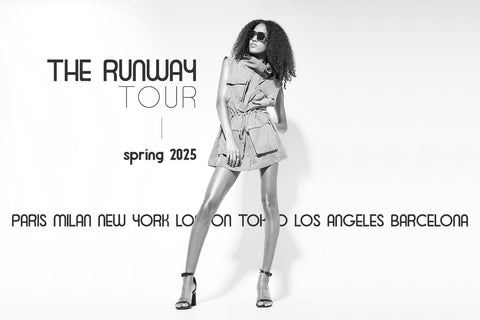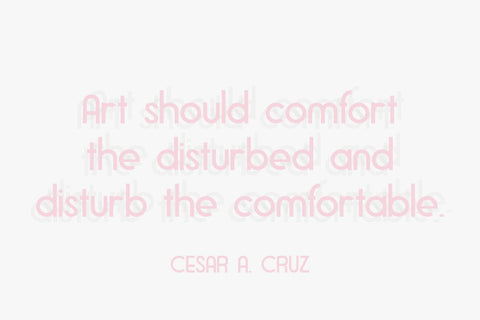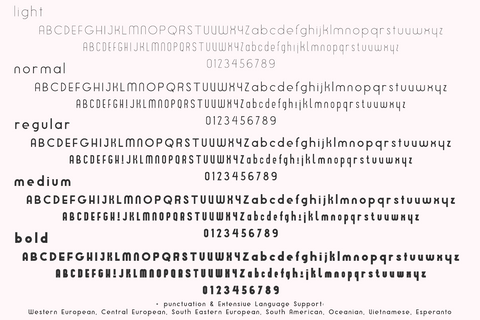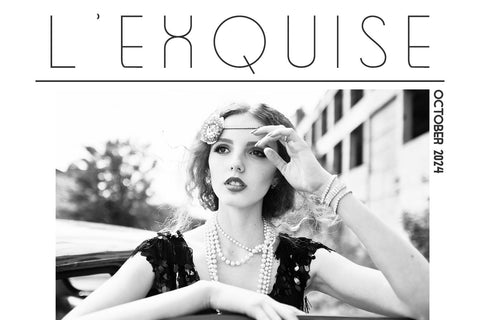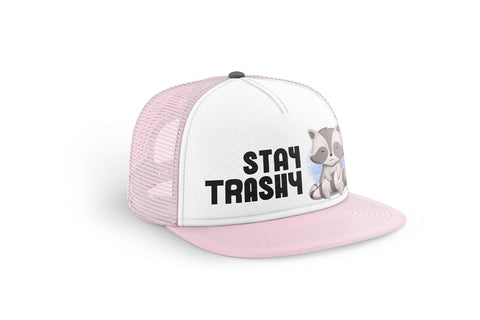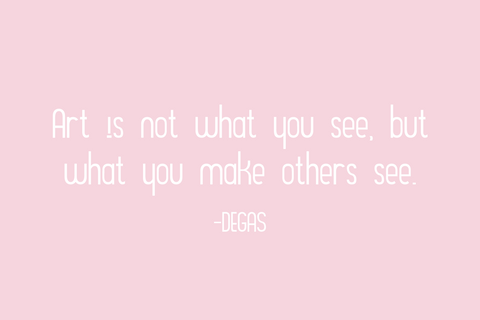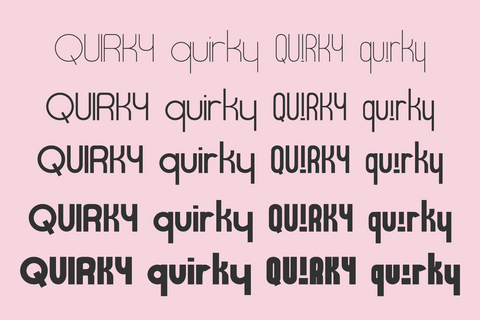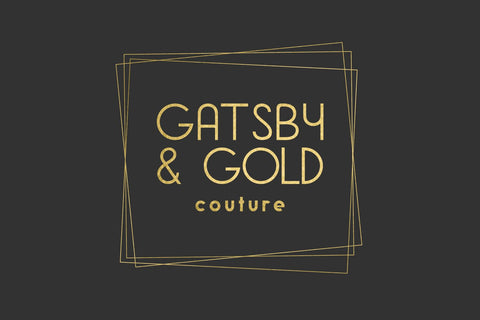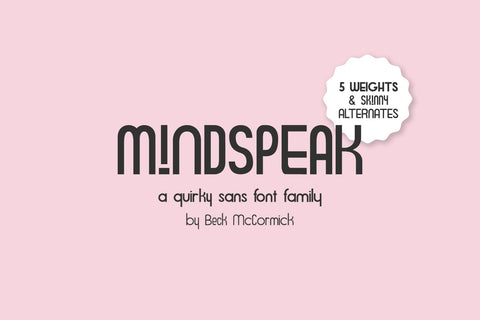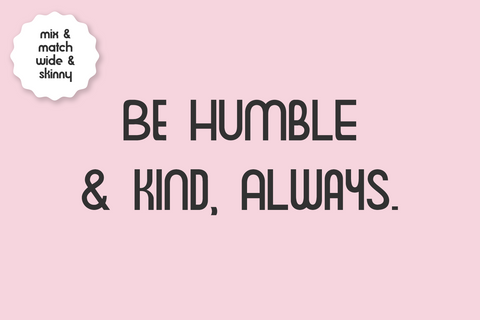
Mindspeak Sans - A 5 Font Family
Introducing the Mindspeak family, a set of fonts that includes five weights. In this quirky family, you’ll find light, normal, regular, medium and bold weights. As an extra, you’ll also find condensed alternates for each uppercase and lowercase character so that you can mix and match to give your project a truly unique feel. Mindspeak is a little art deco and a little retro, and is also clean, legible, and smooth.
For each weight, Mindspeak Sans includes:
- full upper + lowercase characters
- numbers + punctuation
- 52 alternates (A-Z, a-z) that are skinny/condensed
Extensive Language Support:
Western European, Central European, South Eastern European, South American, Oceanian, Vietnamese, Esperanto